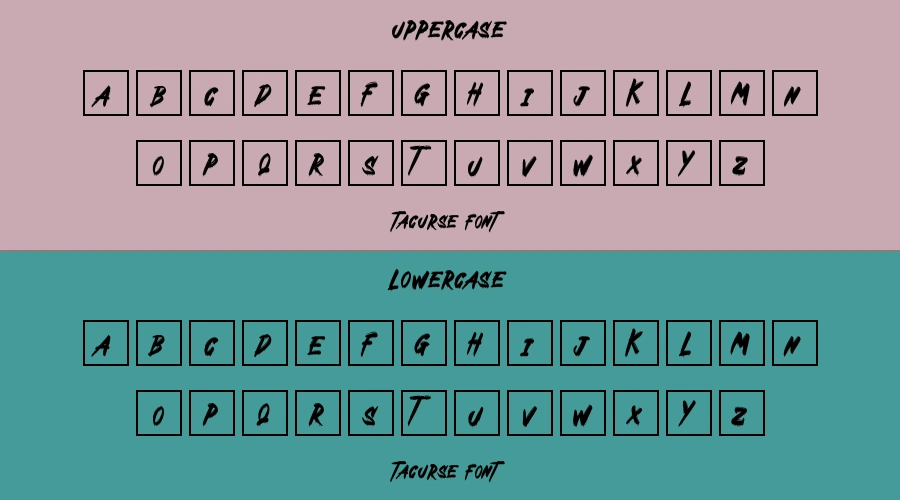
About Tacurse Font
Designed with precision, Tacurse Font merges calculated proportions with reading ease in every character. This versatility makes it particularly effective for legal documents, where personality and historical accuracy directly impact communication quality. Each letterform demonstrates meticulous craftsmanship.
Technical excellence shines through elements like ball terminals and logotype support, enhancing typographic versatility. In artistic statements settings, Tacurse Font proves its worth through superior personality transfer. The thoughtful execution of bowl shape and lifestyle alignment ensures professional results.
Tacurse Font |